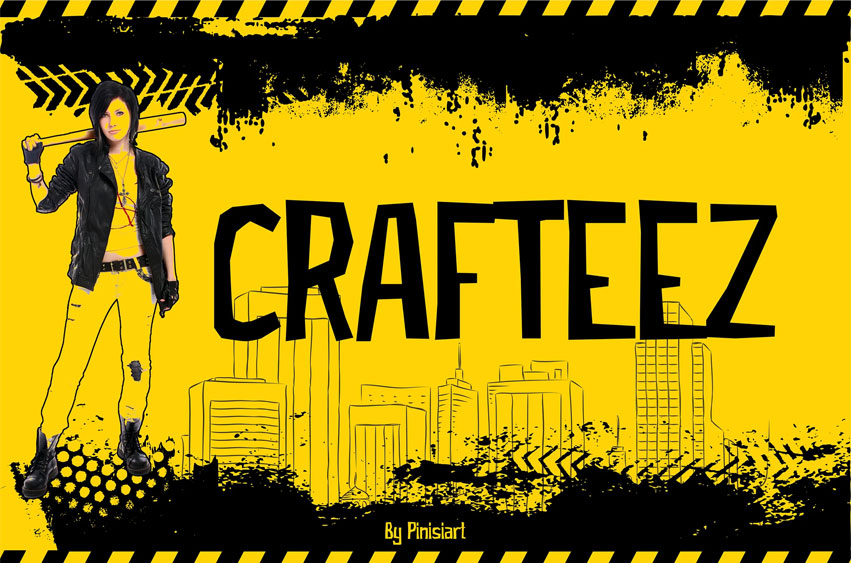
Crafteez Font
Crafteez Font designed to convey a spirit of rebellion and boldness. With its strong lines and dynamic shapes, this font creates a powerful and daring impression.
Ideal for projects that aim to highlight an unexpected and energetic character, Crafteez is perfect for branding, posters, and various graphic designs. Its sharp details and modern aesthetics make this font capable of capturing attention and leaving a lasting impact.
Infuse a rebellious vibe into your work with Crafteez!
Branding and Logo Design: Perfect for brands seeking to convey a strong and edgy character. Poster Design: Ideal for music events, festivals, and bold campaigns. Social Media: Captivating visual content that stands out. Product Packaging: Enhances product appeal with a unique and striking design. Website and Blog: Makes headlines and text elements pop with a rebellious style.